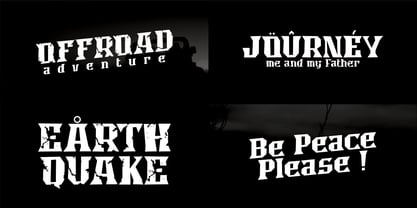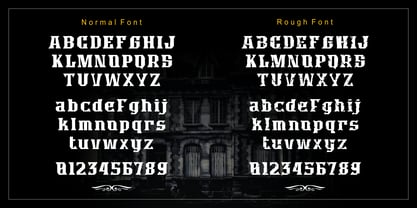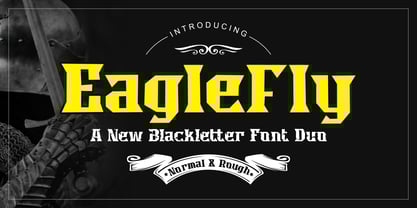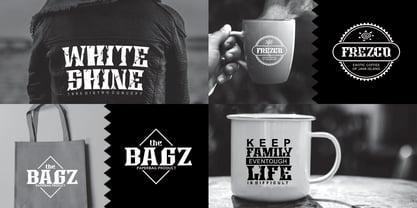
Eaglefly
von Niznaztype
Die Schriftfamilie Eaglefly wurde von Muhammad Nazarudin entworfen und von Niznaztype veröffentlicht. Eaglefly enthält 2 Stile und Familienpaketoptionen.
Introducing a new black letter font. I give name it Eagley font. Eagley has style like gothic, black letter, underground and rock ‘n roll. This font has two styles, normal and rough. Normal style has a formal character. Rough style has a freedom character. But both of them have a strong and dynamic in each glyph. Eagley suitable for poster, t-shirt, cover and tittle. It give a different nuances in your designs. Eagley consist of : - Uppercase - Lowercase - Numeral and punctuation - Multilingual Language Please, enjoy it with Eagley a new black letter font Thank a lot